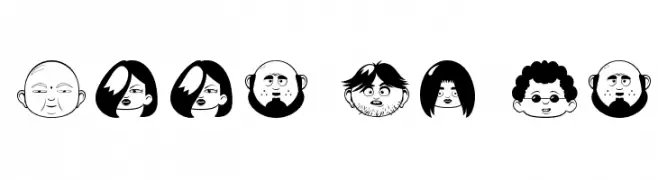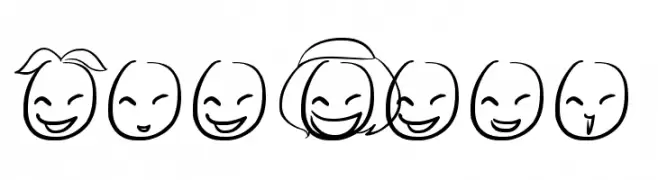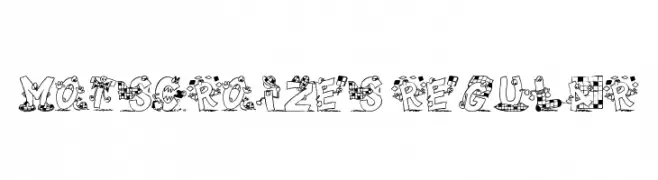
Cartoon face dingbat font with expressive, whimsical characters.
A whimsical, cartoon-like font with playful, animated characters and checkered patterns.
Cartoon face icons form each character for a playful, decorative look.
Hand-drawn smiley face font with playful expressions.